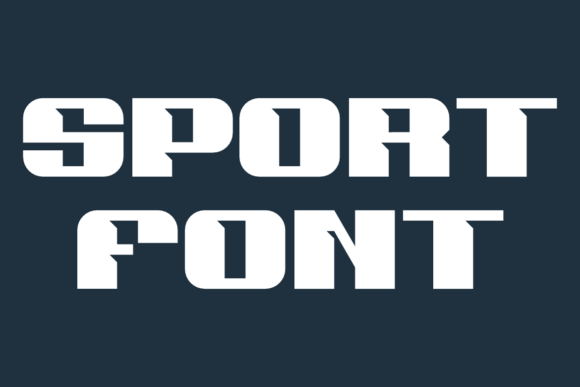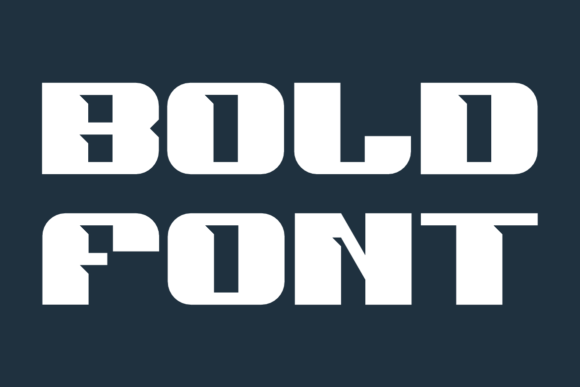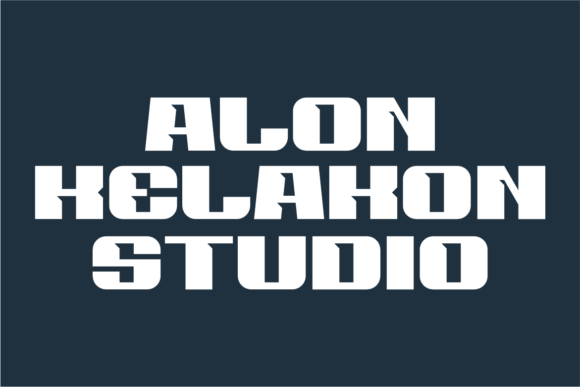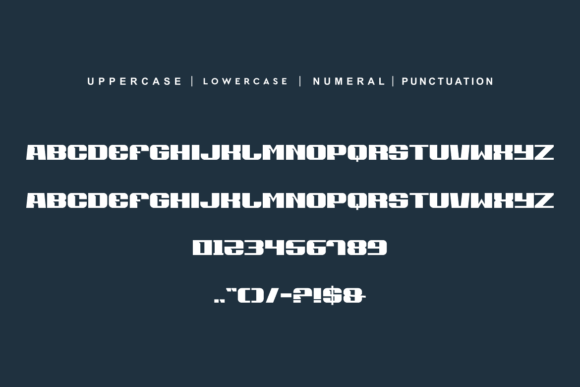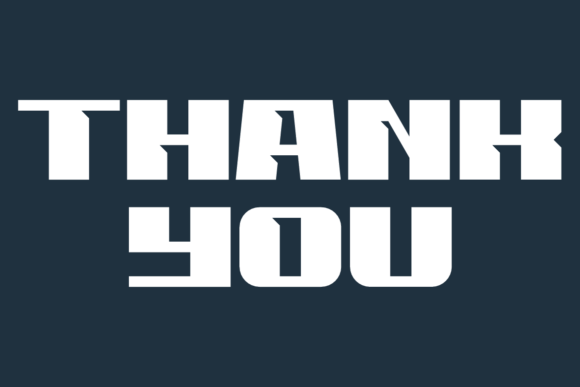
Unleash Your Creativity with Bold Sports Font: Grimstroke
In the world of design, fonts play a crucial role in conveying messages and setting the tone for a project. When it comes to creating bold and eye-catching designs, a reliable font is essential. This is where Grimstroke, a bold and assertive sans serif font, comes into play. With its versatility and strong personality, Grimstroke is an incredible asset to any designer’s font library, capable of elevating any creation to new heights.
The Power of Bold Sports Font
Grimstroke is not just any ordinary font; it’s a statement maker. Its bold and assertive nature makes it perfect for designs that require a strong visual impact. Whether you’re working on a sports-related project, a poster, a logo, or a website, Grimstroke’s presence can instantly add a level of professionalism and sophistication. Its sans serif design ensures clarity and readability, making it suitable for a wide range of applications.
Versatility Across Topics
One of the standout features of Grimstroke is its versatility. No matter the topic or industry, this font can adapt and enhance your design. For sports-related projects, its boldness conveys energy and dynamism. For more creative or abstract projects, Grimstroke adds a modern and edgy touch. Its adaptability makes it a go-to font for designers who work on a variety of projects and need a reliable font that can keep up with their creative demands.
Key Features of Grimstroke
- Bold and Assertive: Grimstroke’s bold nature makes it perfect for headlines, titles, and any design element that needs to stand out.
- Sans Serif Design: The clean and modern sans serif design ensures that your text remains clear and readable, even at smaller sizes.
- Versatile: Suitable for a wide range of projects, from sports and fitness to technology and creative industries.
- Elegant and Professional: Despite its boldness, Grimstroke maintains an air of elegance and professionalism, making it suitable for corporate designs as well.
How to Use Grimstroke Effectively
To make the most out of Grimstroke, consider the following tips:
- Headlines and Titles: Use Grimstroke for headlines and titles to grab attention and set the tone for your content.
- Combine with Other Fonts: Pair Grimstroke with complementary fonts for body text to create visual interest and hierarchy in your design.
- Experiment with Sizes: Don’t be afraid to experiment with different sizes to emphasize certain words or phrases within your text.
- Colors and Effects: Consider the color scheme and effects that will enhance Grimstroke’s impact. Contrasting colors and subtle effects can further elevate its presence in your design.